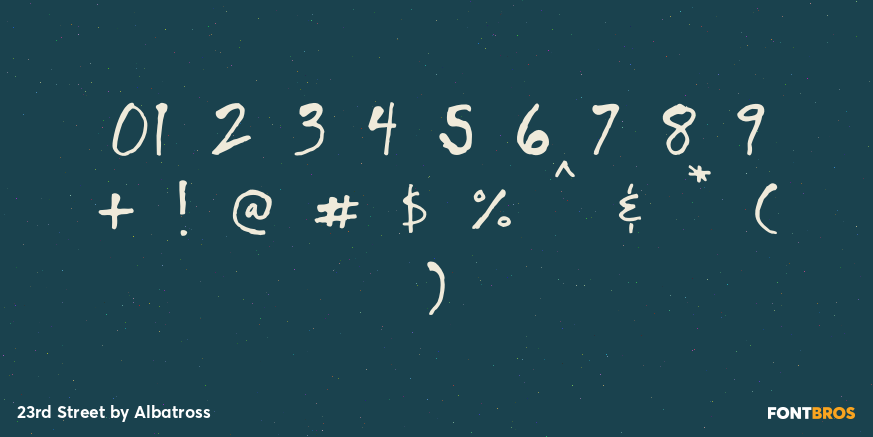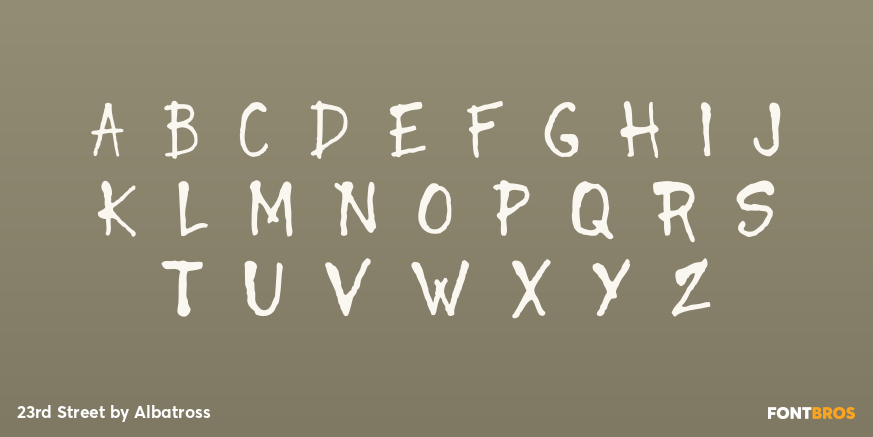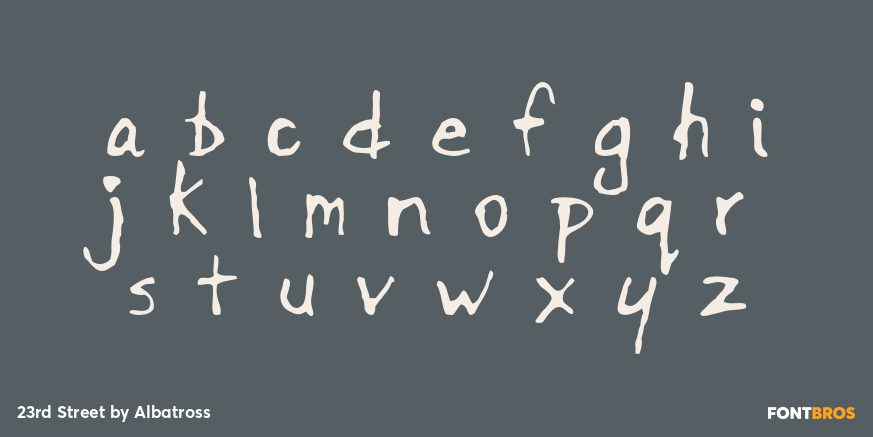
23rd Street
Font Family by Albatross
23rd Street is a casual script with a distressed, handwritten look and an unmistakably urban attitude. Its rough texture and graffiti-inspired energy give it a loose, expressive feel that reads as informal, bold, and full of personality.
With its single-style format, this font is a strong choice for display work that needs a raw, streetwise voice. Use it for posters, apparel graphics, branding, signage, social graphics, or any project where a hand-drawn script with a worn-in edge can bring more character to the page.
Created by Albatross, 23rd Street blends casual script styling with a gritty finish that feels immediate and unpolished in the best way. It is especially well suited to designs that want something personal, expressive, and a little rough around the edges.